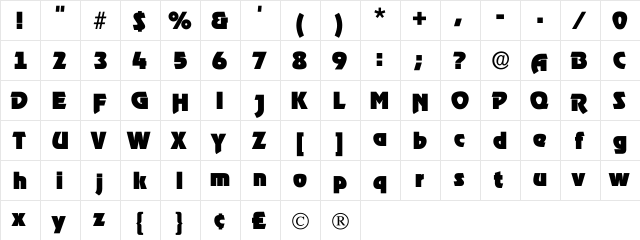
RoostHeavy Regular
Design Context for RoostHeavy Typeface
RoostHeavy offers clean, dependable letterforms without strong stylistic allegiance, making it a practical choice for designers who need flexibility.